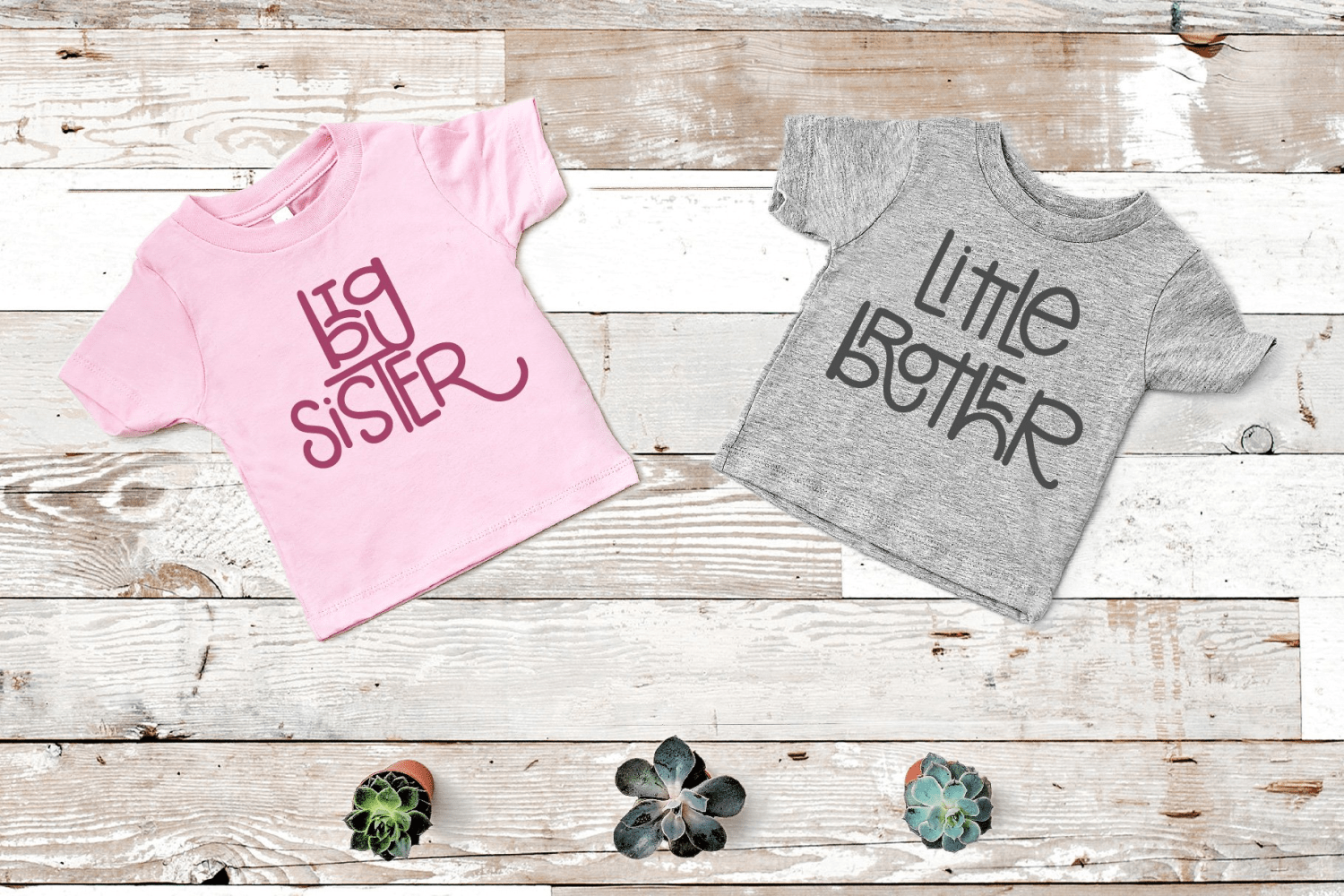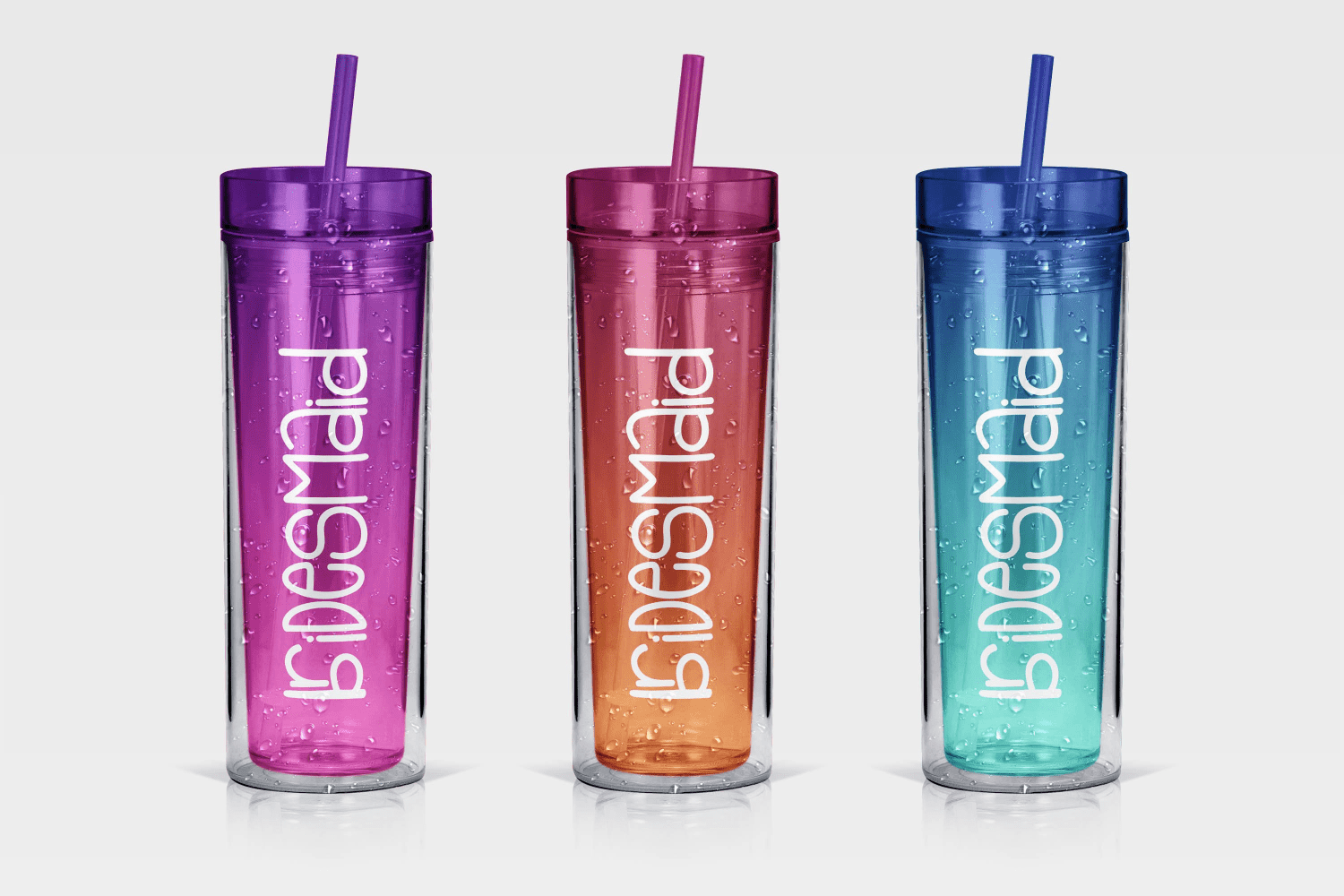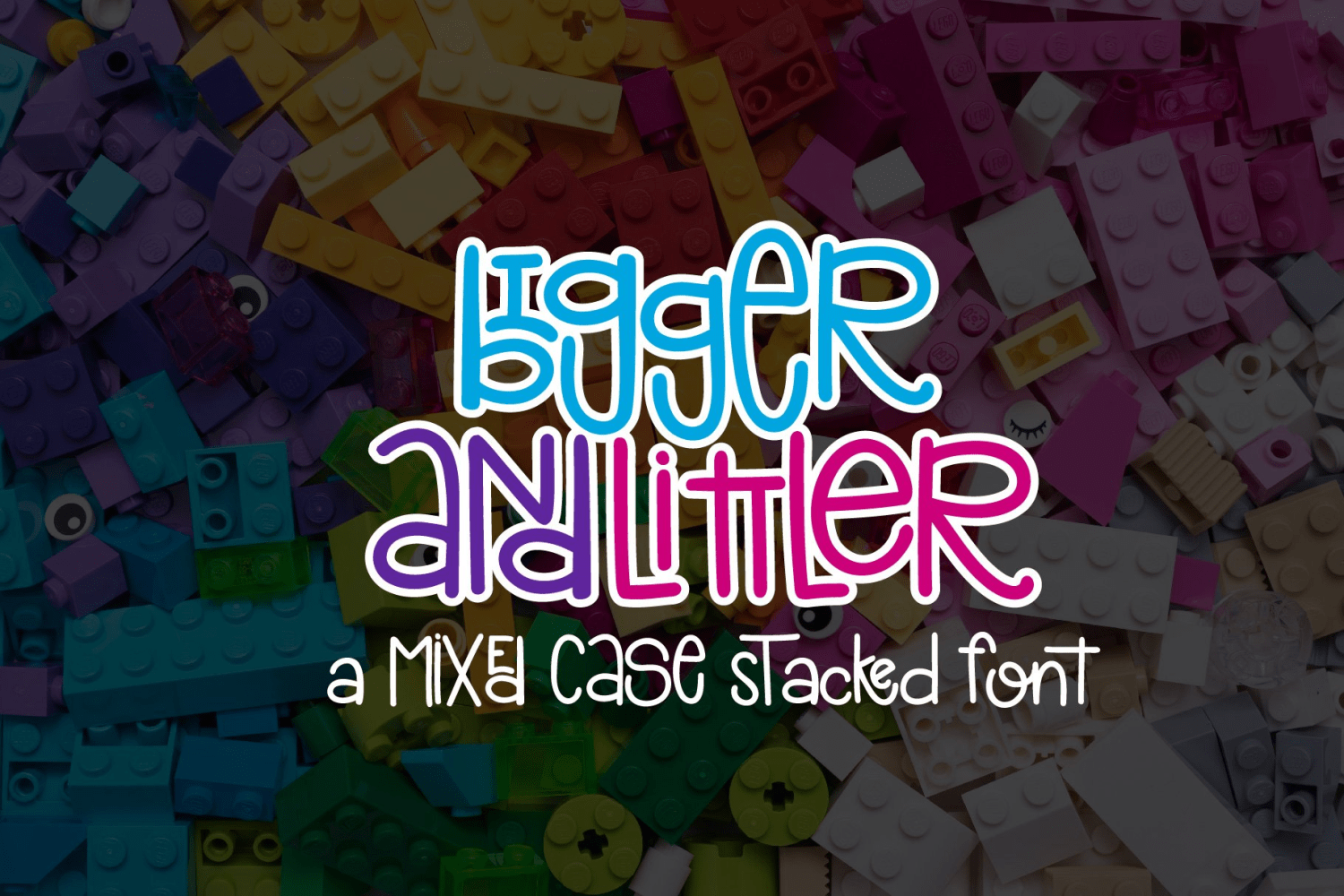
HomeFont BrosSans SerifBigger Littler Sans SerifWacky Bigger Littler FacebookXPinterestWhatsApp 1 of 3 About Bigger Littler A fun mixed case stackable font perfect for DIY projects or your small biz!  DOWNLOAD NOW People also explored Garnet Gildan 5000 Girls T Shirt Mockup Signature Font Alabama Font Jima Font Denham Font Start Today Font Loisa Font Nastar Font Mogenta Signature Font 206 0 TagsBigger Littler Font Previous articleRoadstarNext articleBaselina LEAVE A REPLY Cancel reply Comment: Please enter your comment! Name:* Please enter your name here Email:* You have entered an incorrect email address! Please enter your email address here Website: Save my name, email, and website in this browser for the next time I comment. Personal Use Free Ennobled Pet Personal Use Free Read more about this font Nugo Sans Personal Use Free Read more about this font Predators Personal Use Free Read more about this font Shawaki Personal Use Free Read more about this font BLOG Best Fonts for T-Shirt Design – Top 2025 Picks In 2025, t-shirt design has become more than just fashion—it's a form of self-expression. Whether you're... How to Cut Any Font on Cricut: Convert a Font to SVG (Free) Top 7 Google Fonts Alternatives for Faster and Privacy-Friendly Web Design (2025) To increase your work productivity, choose the most readable fonts.